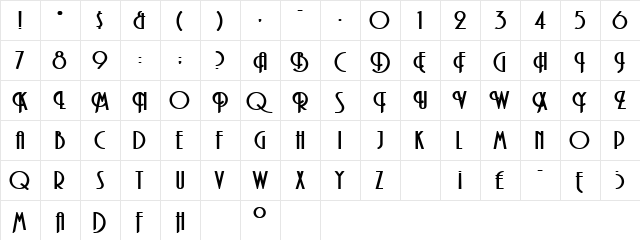
ALLENB Regular
Design Context for ALLENB Typeface
ALLENB is a composed and adaptable typeface that performs quietly and consistently across a wide range of design contexts.